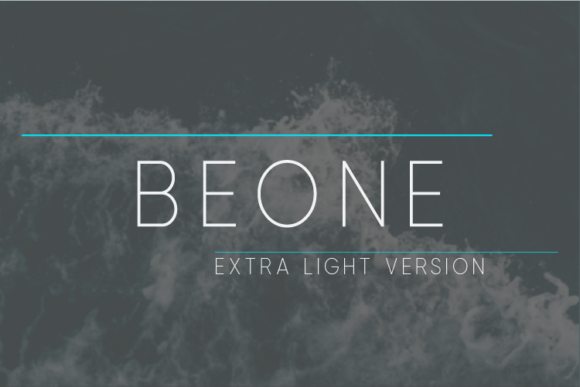
Give Your Designs a Touch of Sophistication with Beone Extra Light Font
Remember that moment when you were stuck on a design project, and you couldn’t seem to find the perfect font to convey the message you wanted to get across? You scrolled through your font library, trying to find something that would elevate your design to the next level, but nothing seemed to fit. That’s where Beone Extra Light Font comes in – a modern sans serif font that’s inspired by the clean lines and minimalistic aesthetic of trendy branding and natural cosmetic packaging.
With Beone Extra Light Font, you can add a professional touch to your designs, making them stand out from the crowd. This versatile font is perfect for designers who want to create a cohesive look for their projects, from logos to brochures and beyond. Whether you’re working on a new branding campaign or creating a marketing materials, Beone Extra Light Font is the perfect addition to your design toolkit.
- Unique Characteristics: Sleek, modern design with a high level of sophistication, perfect for branding and editorial applications
Beone Extra Light Font Review
As a designer, I had the chance to work with the Beone Extra Light Font, and here’s my honest review.
The Beone Extra Light Font is a beautiful, elegant font that is perfect for creating a sophisticated and modern look. Its extra light weight gives it a delicate feel that is perfect for use in headings, titles, and other high-impact design elements.
- Highly legible, even at small sizes
- Great for creating a sense of luxury and sophistication
- Works well in both digital and print designs
While the Beone Extra Light Font is a great addition to any designer’s toolkit, it does have a few limitations.
- Not ideal for use in body text, as it can be difficult to read at standard font sizes
- Lacks a bold weight, which can make it difficult to create visual hierarchy in designs
- May not be suitable for use in designs where a strong, attention-grabbing font is needed
Overall, I would say that the Beone Extra Light Font is a great choice for designers who want to create a sophisticated and modern look. While it may have a few limitations, its unique style and high legibility make it a valuable addition to any designer’s toolkit.
Getting the Most Out of Beone Extra Light Font
Beone Extra Light Font is ideal for creating clean, modern designs that require a light and airy feel. Tips for getting the most out of this font include:
– Using it for headings and titles to create a clear hierarchy of information.
– Pairing it with bold or sans-serif fonts to add contrast and visual interest.
– Adjusting the font size to create a balanced composition.
Beone Extra Light Font is commonly used for:
– Branding and identity design
– Digital signage and advertising
– Editorial and publishing design
– Corporate and business presentations
Alternatives to Beone Extra Light Font
Lato Light Font
Lato Light Font is a modern sans-serif font that is suitable for various design projects, including headings, titles, and body text. It’s ideal for websites, applications, and print materials where a clean and elegant look is desired. Lato Light is more condensed than Beone Extra Light, making it perfect for small screens and tight spaces.
Montserrat Light Font
Montserrat Light Font is a geometric sans-serif font that is commonly used in digital products, such as websites and applications. It’s a great choice for headings, titles, and body text where a modern and urban feel is desired. Montserrat Light is more robust than Beone Extra Light, making it suitable for larger text sizes and bold headings.